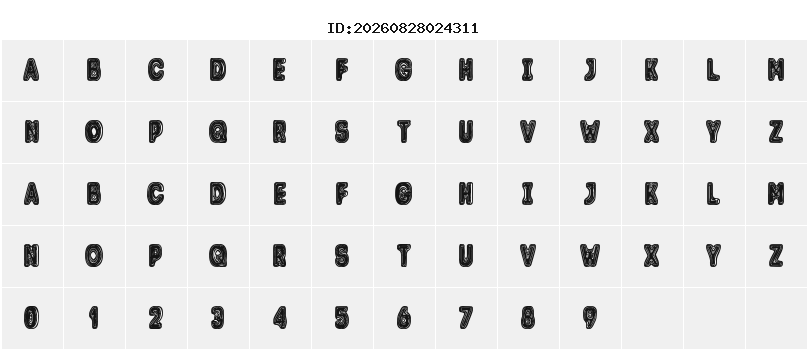
• Font Name: Trolle
• Designer: junkohanhero
About Trolle.ttf
Trolle.ttf is a modern, elegant sans-serif font designed for ultimate readability and visual harmony. Perfect for branding, headlines, web design, and print materials.